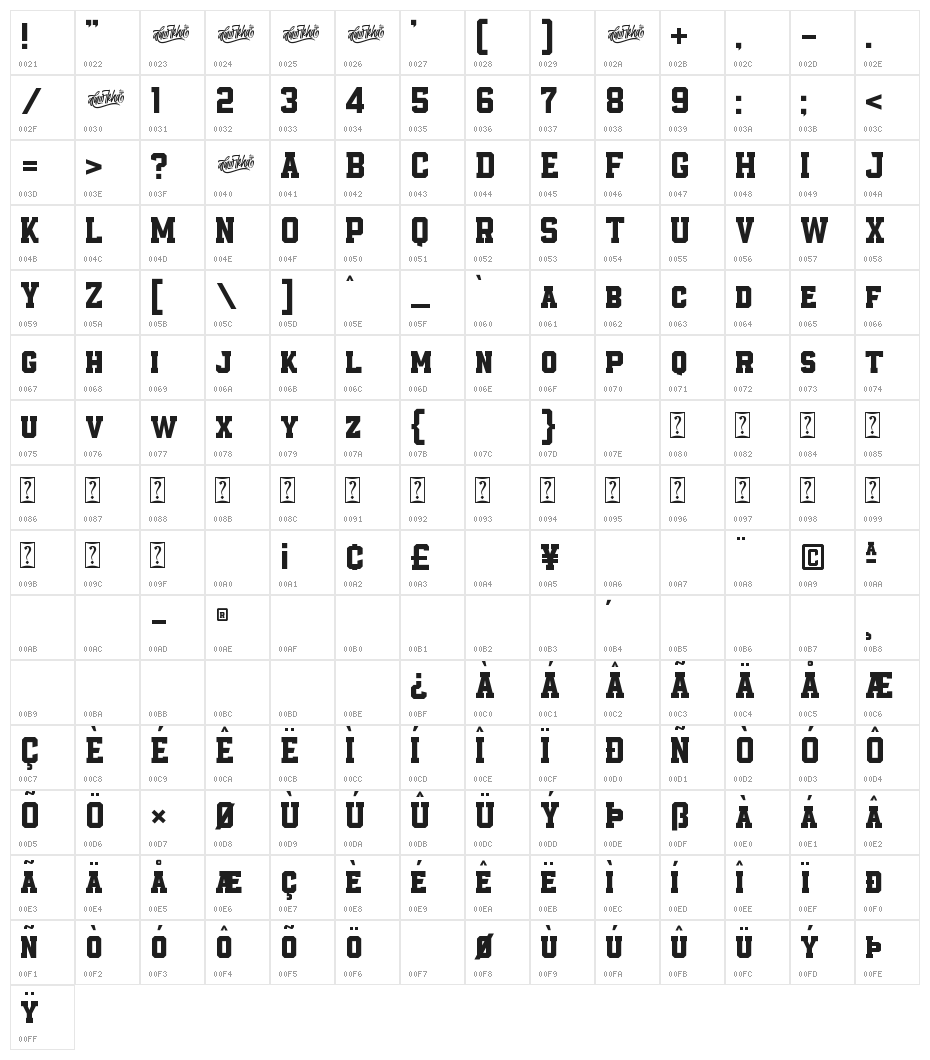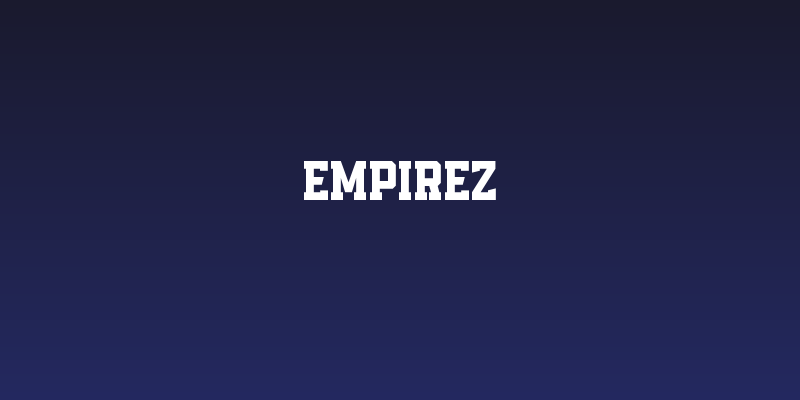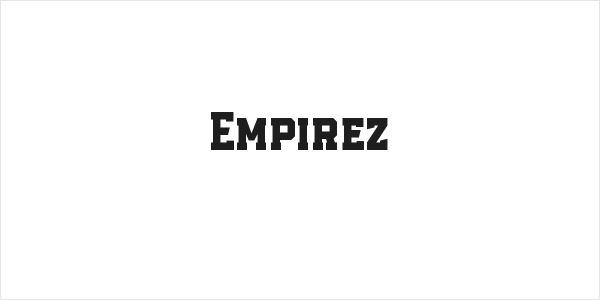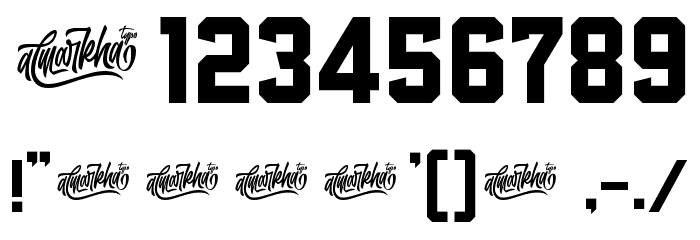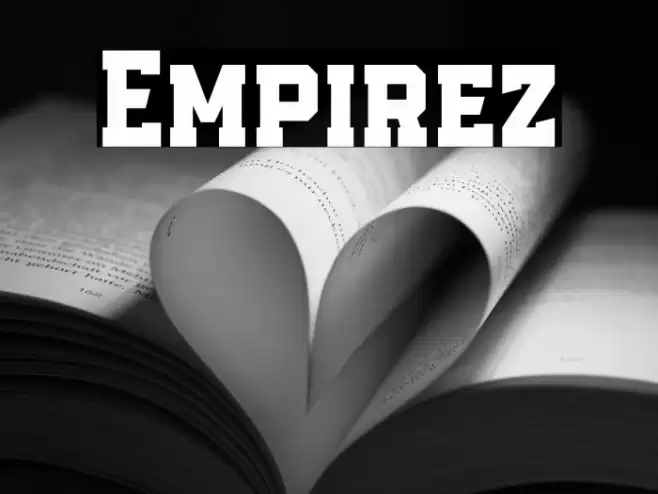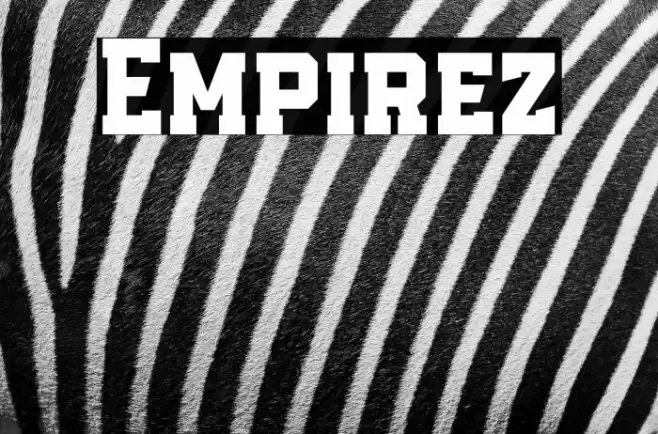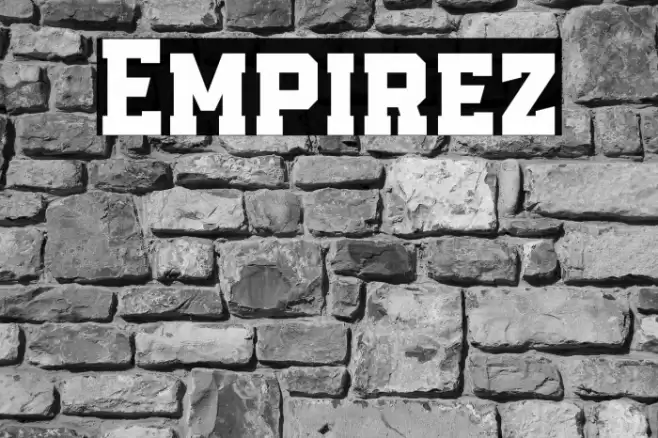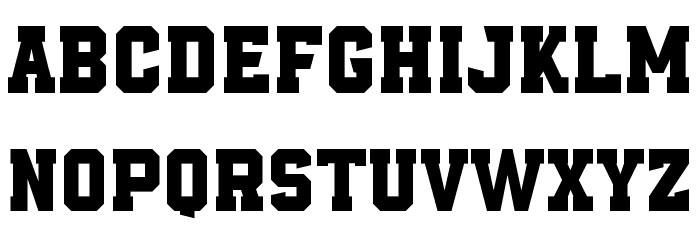
Empirez Font
Empirez Description
This font features a bold and robust design with strong geometric shapes and a commanding presence. The uppercase letters are characterized by thick, block-like structures with sharp angles, giving them a powerful and authoritative look. The lowercase letters maintain the same boldness, ensuring consistency across text. The numbers are equally bold, making them stand out prominently. Special characters are included, maintaining the same stylistic approach. The font's overall appearance is reminiscent of vintage sports or collegiate styles, making it ideal for projects that require a strong and impactful visual statement.
| Overall Style | Vintage |
| Proposed Projects | Ideal for sports team branding, posters, headlines, and merchandise design. |